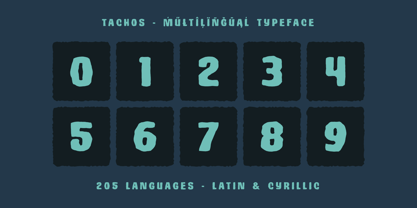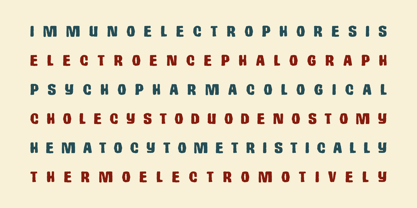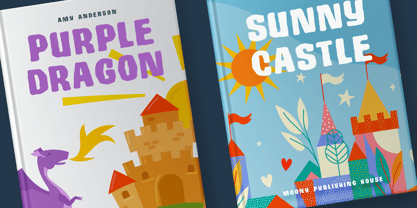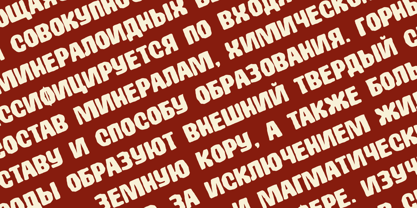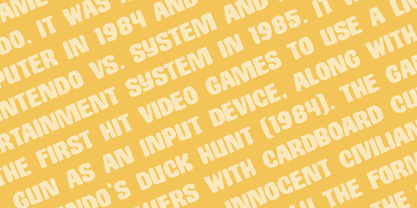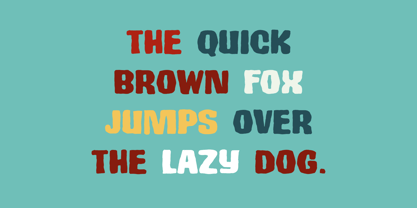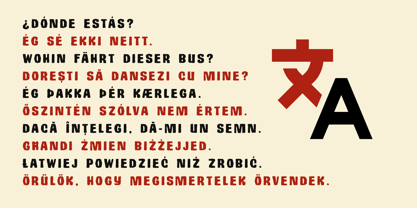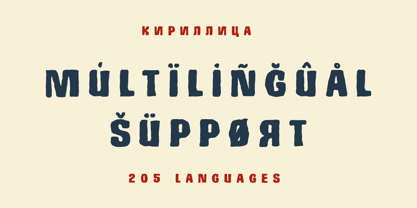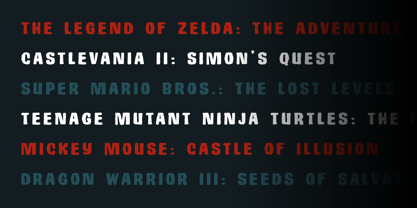
Tachos
by AlperCakici
Tachos is a rugged, eroded display typeface inspired by Mexican art, dusty western textures, and handcrafted eroded lettering. It supports 205 languages and was designed by Alper Çakıcı. Tachos combines raw character with strong readability, making it ideal for a variety of applications including posters, branding, packaging, restaurant menus, music artwork, gaming titles, apparel, and cinematic designs. The family features 66 styles, showcasing a wide range of distressed textures and personalities such as Aged, Brush, Chalk, Dry, Grainy, Gritty, Hazy, Pencil, Rough, Rusty, Sketchy, Worn, Outline, and Rounded variations, all with matching italics. From subtle vintage wear to aggressive textured surfaces, Tachos provides designers with a versatile toolkit for achieving authentic handcrafted aesthetics. Supporting both Latin and Cyrillic languages with 567 glyphs, Tachos is well-suited for multilingual projects while maintaining its bold, rustic identity. Whether you're designing tequila labels, taco restaurant branding, desert-inspired posters, western titles, urban packaging, or retro festival graphics, Tachos delivers a warm, rugged, and expressive typographic voice. Its Mexican-inspired atmosphere, combined with rough handmade detailing, creates a powerful visual presence that is perfect for projects requiring authenticity, energy, and texture.
Designers: Alper Çakıcı
Foundry: AlperCakici